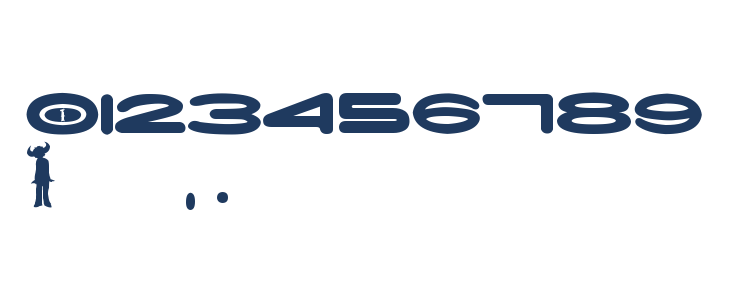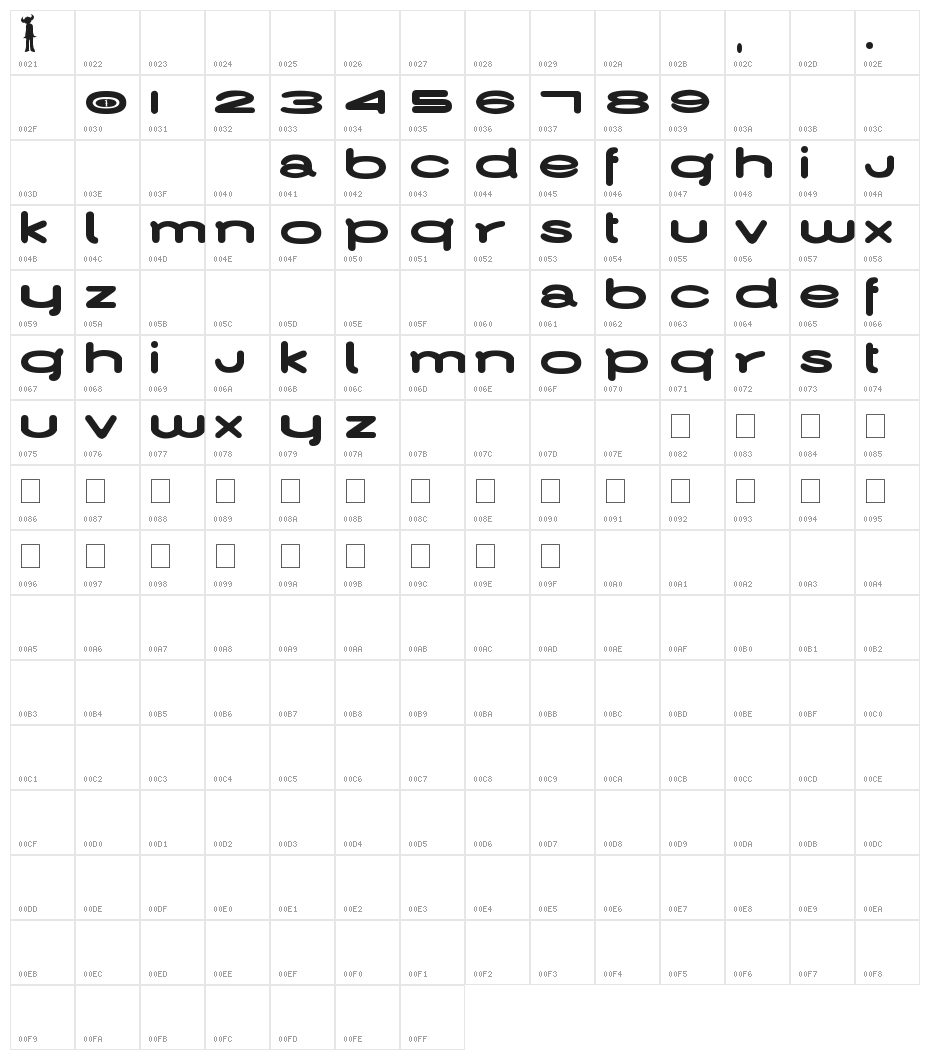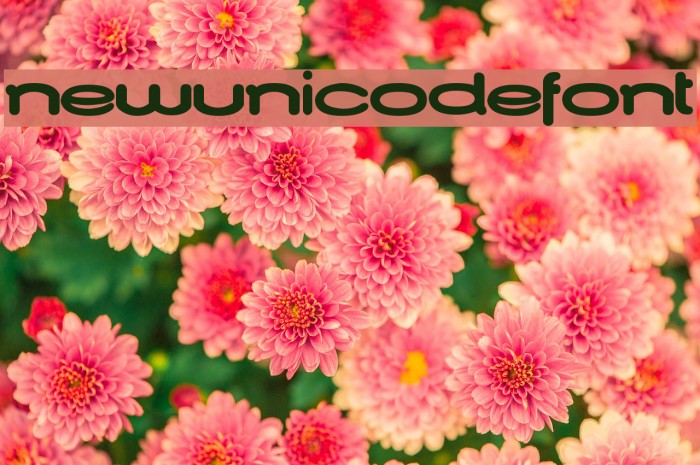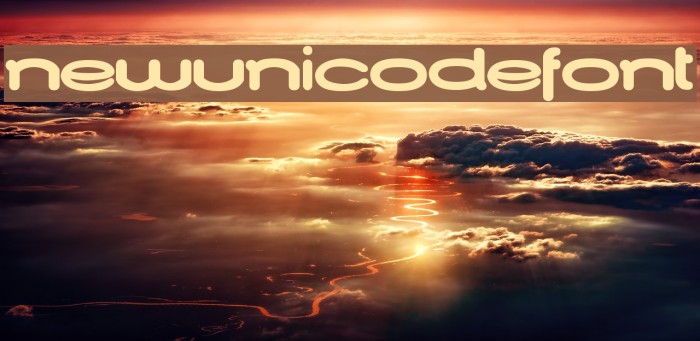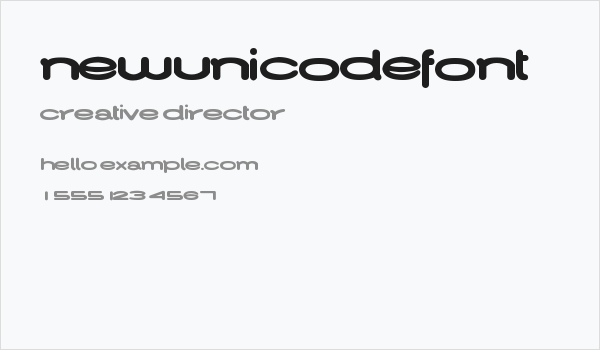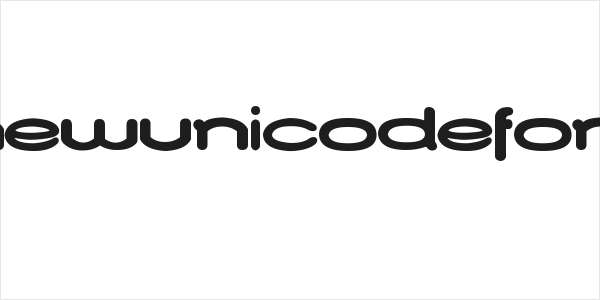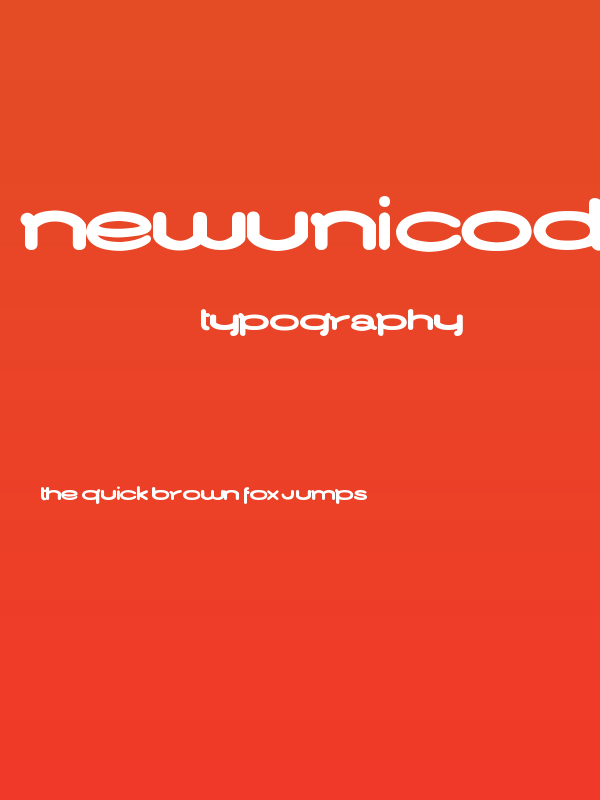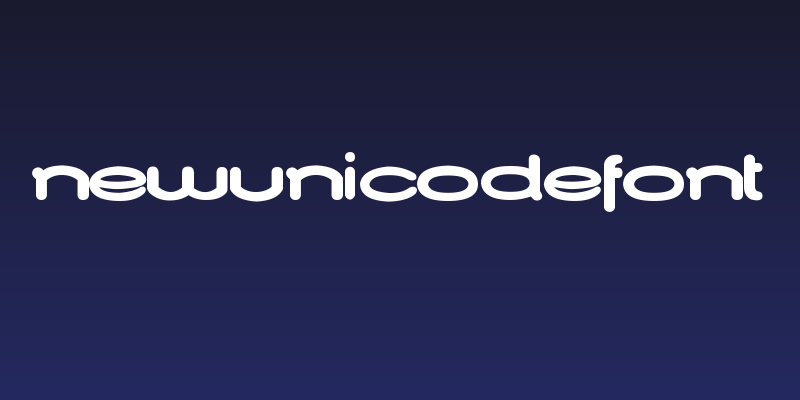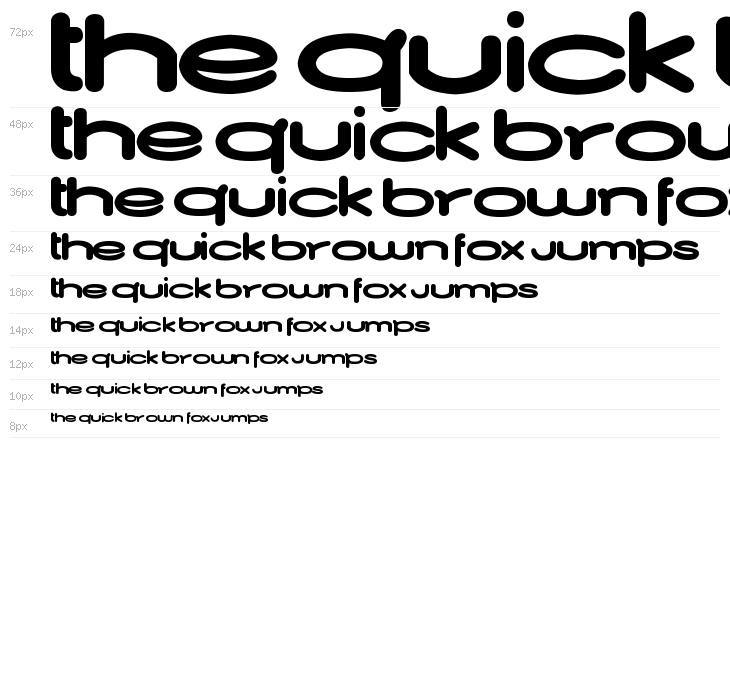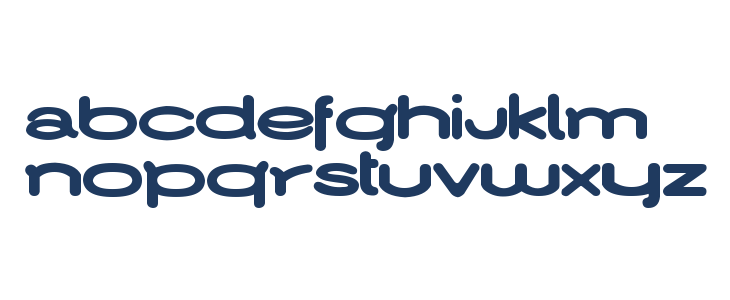
NewUnicodeFont Font
NewUnicodeFont Description
This font features a bold and rounded style with a modern and playful aesthetic. The characters are uniformly thick, giving them a strong presence on the page. The rounded edges and smooth curves create a friendly and approachable look, making it suitable for a variety of creative projects. The numbers and special characters maintain the same playful style, ensuring consistency across all text elements. The overall design is clean and easy to read, with a slight futuristic touch that adds a unique flair.